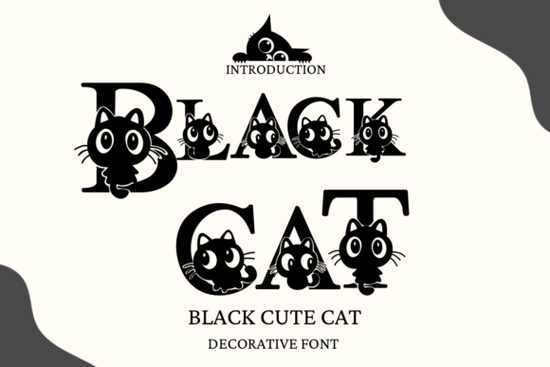
Black Cute Cat Font is a unique and eye-catching typeface that blends playful illustrations with elegant typography. Designed for those who want to add a touch of whimsy to their projects, this font features cute black cat elements subtly integrated into each letter. Whether you're working on a Halloween design, a pet-related project, or a children's illustration, this font offers a fresh and creative way to express your ideas.
Black Cute Cat Font is ideal for a wide range of applications. Its charming design makes it a great choice for greeting cards, especially for occasions like birthdays, anniversaries, or pet-themed events. It also works well for branding materials, such as logos, packaging, or social media graphics. The font’s playful yet sophisticated style can help your designs stand out while maintaining a professional appearance.
One of the key strengths of this font is its versatility. It can be used in both digital and print formats, making it a valuable tool for designers, crafters, and small business owners. Whether you're creating custom T-shirts, stickers, or promotional materials, Black Cute Cat Font adds a personal and artistic touch that resonates with audiences of all ages.
When using Black Cute Cat Font, consider the context of your project. While it works well for casual and fun designs, it may not be the best choice for formal or minimalist layouts. However, when used appropriately, it can bring a sense of personality and charm to your work. Experimenting with different sizes, colors, and backgrounds can help you discover the best way to incorporate this font into your designs.
If you're new to using decorative fonts, start by testing them in small projects before applying them to larger or more critical work. This allows you to see how they look in different settings and adjust accordingly. You can also pair them with simpler fonts to create a balanced and visually appealing composition.
For a quick reference, here’s a checklist to help you get the most out of Black Cute Cat Font:
- Identify the right use case – Choose projects that match the playful and creative nature of the font.
- Test in different formats – See how the font looks in both digital and print mediums.
- Pair with complementary fonts – Combine it with simpler typefaces for better readability.
By incorporating Black Cute Cat Font into your design workflow, you can add a unique and memorable element to your creative projects. Whether you're designing for personal enjoyment or commercial use, this font offers a fun and effective way to express your vision.